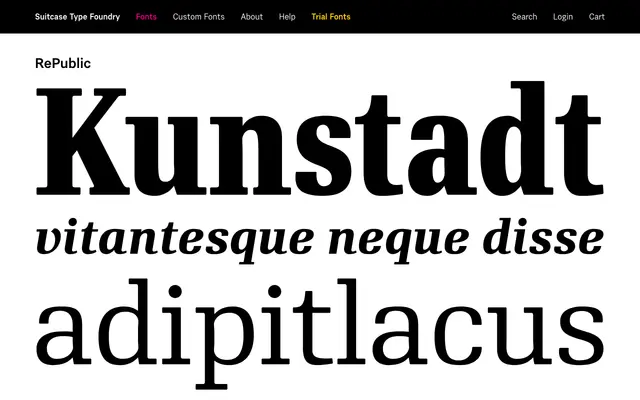
A sans-serif from Suitcase Type Foundry with limited detail available from the page content scraped.
RePublic is a sans-serif typeface from the Czech foundry Suitcase Type Foundry, whose catalogue leans towards geometric and humanist grotesques suited to editorial and identity work. The page content available does not reveal specific weights, designers or release year. Further detail would require direct access to the full product page.
The name and foundry context suggest a geometric or humanist grotesque in the central European tradition; classified as sans-serif grotesque based on typical Suitcase Type Foundry output and naming conventions.